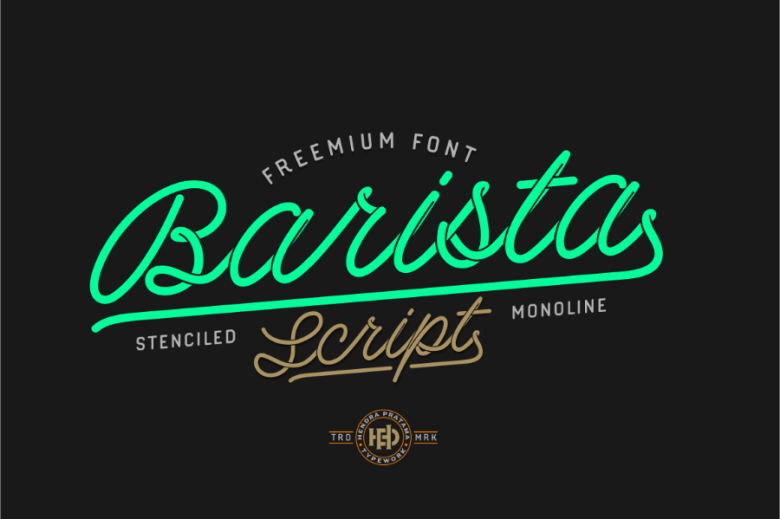
Barista Script Font
Introducing Barista! It is designed and shared by Hendra Pratama. Barista is a modern handwriting caligraphy, has its own distinctive features with a feminine style. The stenciled or the cut-off shapes from Barista Script not only will make your typography looks like a rope formed into a flow connected letters, but also will make your type designs like it is made from a custom hand lettering. It is perfect for invitations, signatures, blogs, social media, business cards, product brands and more.